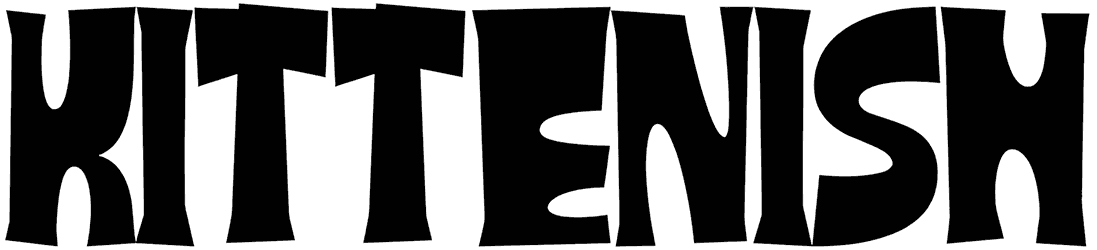
Kittenish Font
Another pretty font we have for you today is the Kittenish font. The cartoonish font with playful letters can come in handy for children-oriented projects like cartoon titles, book covers, amusement parks, and so on. You’ll just love the shape your name looks with its bold, cute letters. For those who are on the lookout for a distinct highlight font, this one will not disappoint.